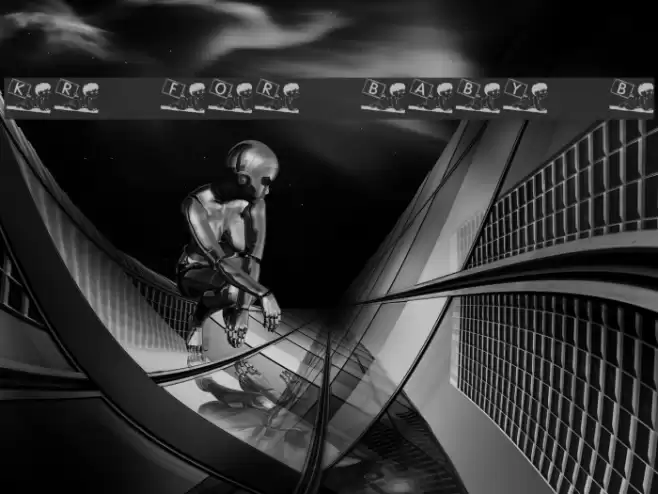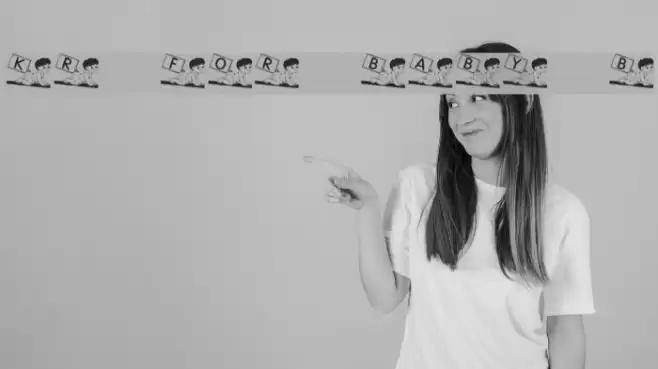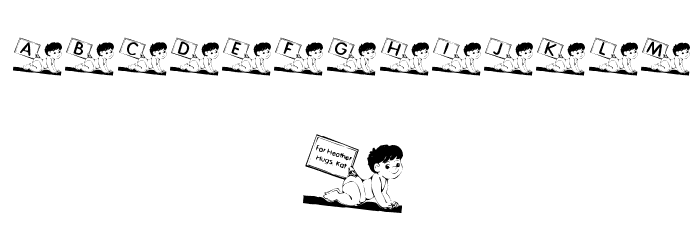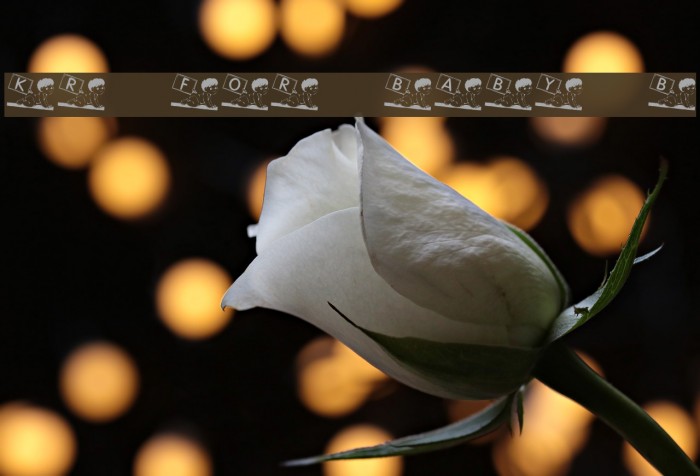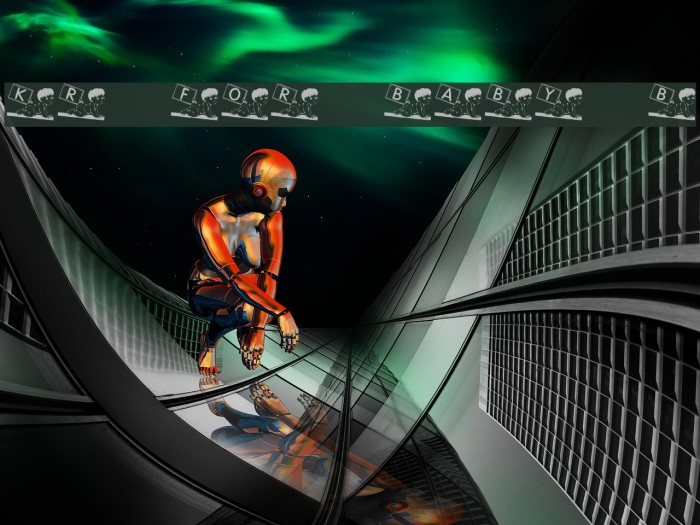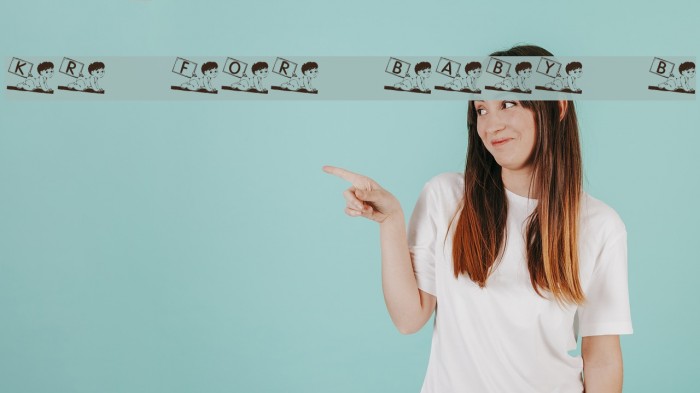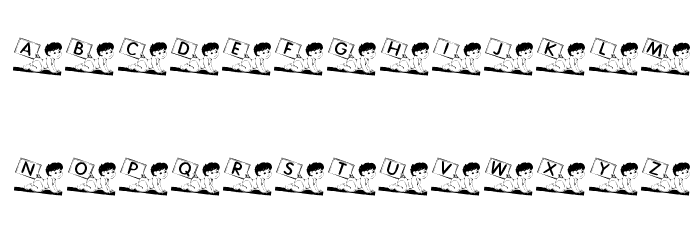
KR For Baby B Font
KR For Baby B Description
This playful and whimsical font features each letter accompanied by an illustration of a baby holding a card with the letter on it. The design is charming and child-friendly, making it ideal for projects aimed at young audiences. The letters are bold and clear, ensuring readability while maintaining a fun aesthetic. The overall style is decorative and engaging, with a unique blend of typography and illustration that captures attention. The font is perfect for educational materials, children's books, or playful branding projects.
A playful font with letters held by illustrated babies, perfect for child-friendly projects from Uncategorized fonts.
- Proposed Projects: Ideal for children's books, educational materials, nursery decor, and playful branding.